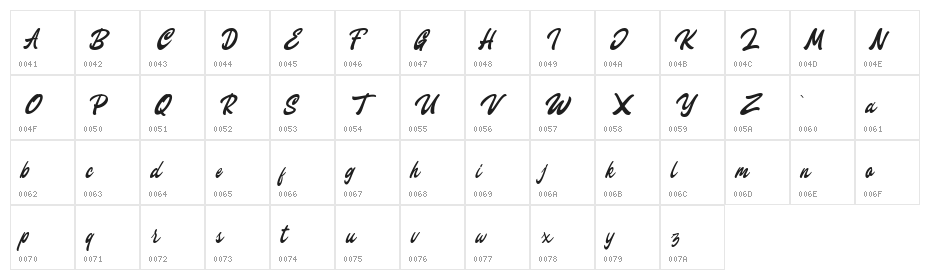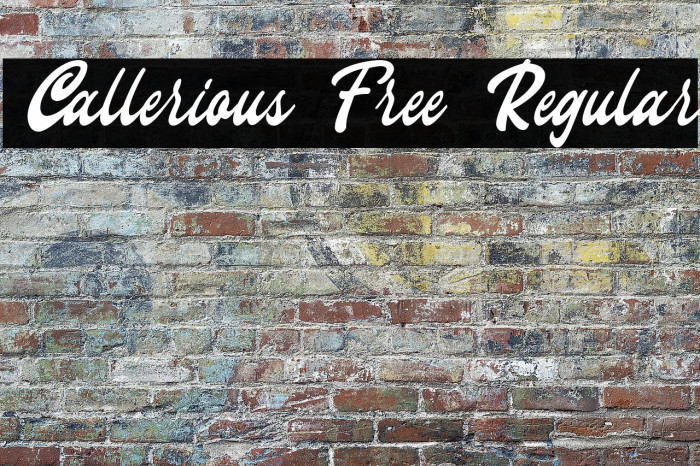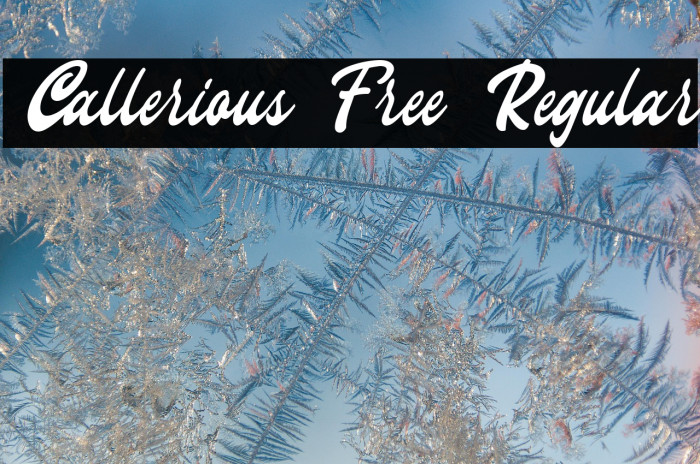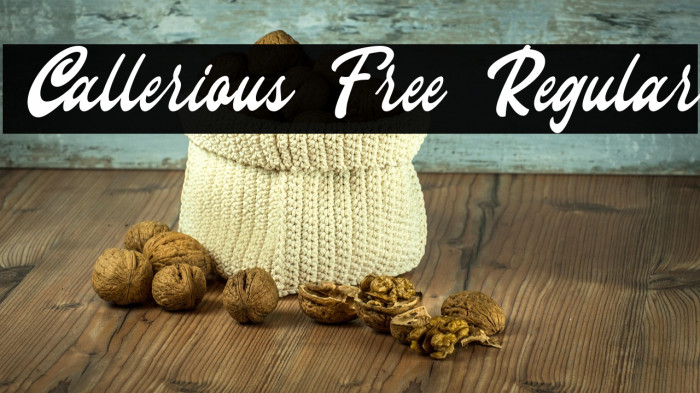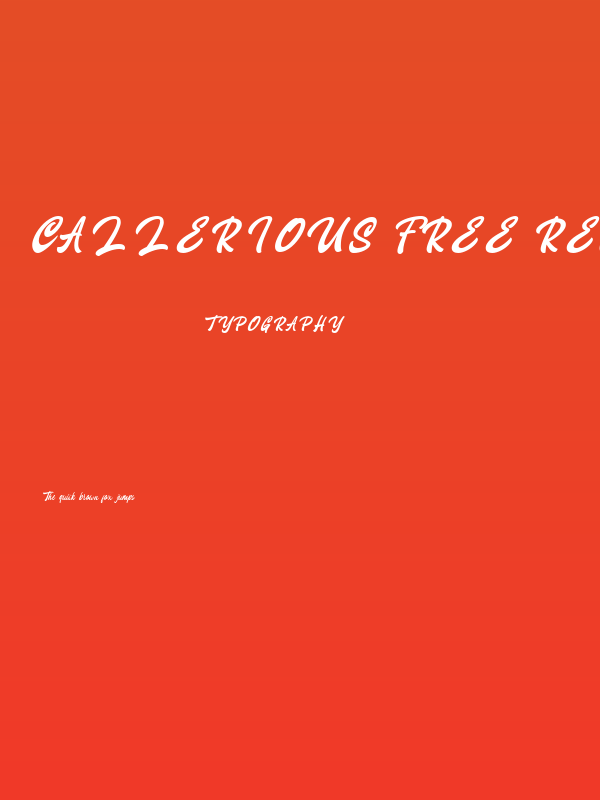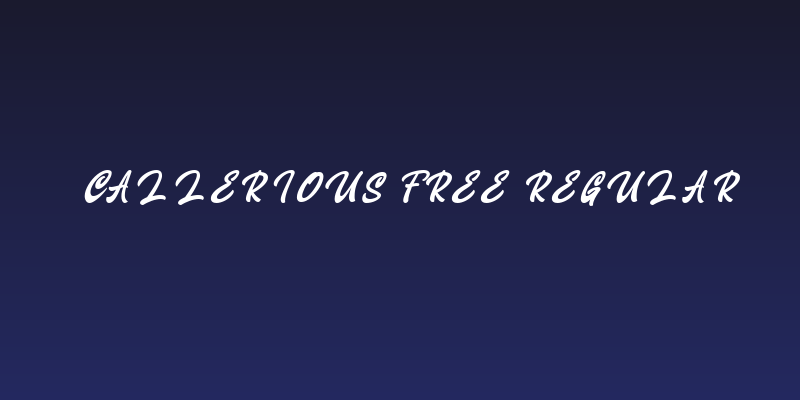
Callerious Free Regular Font
Callerious Free Regular Description
This font features a flowing, cursive style with elegant, sweeping strokes that give it a handwritten appearance. The characters are connected, enhancing the fluidity and continuity of the text. The uppercase letters are bold and prominent, while the lowercase letters maintain a consistent size and style, contributing to a harmonious overall look. The font's design is both sophisticated and approachable, making it suitable for a variety of creative applications. The special characters are seamlessly integrated, maintaining the font's cohesive aesthetic.